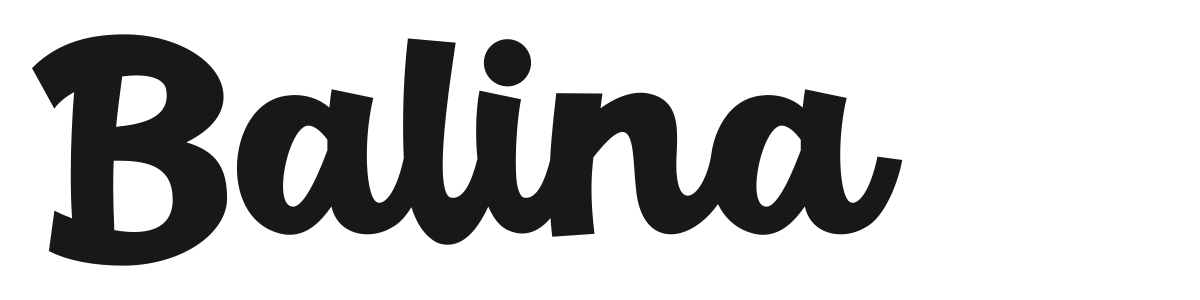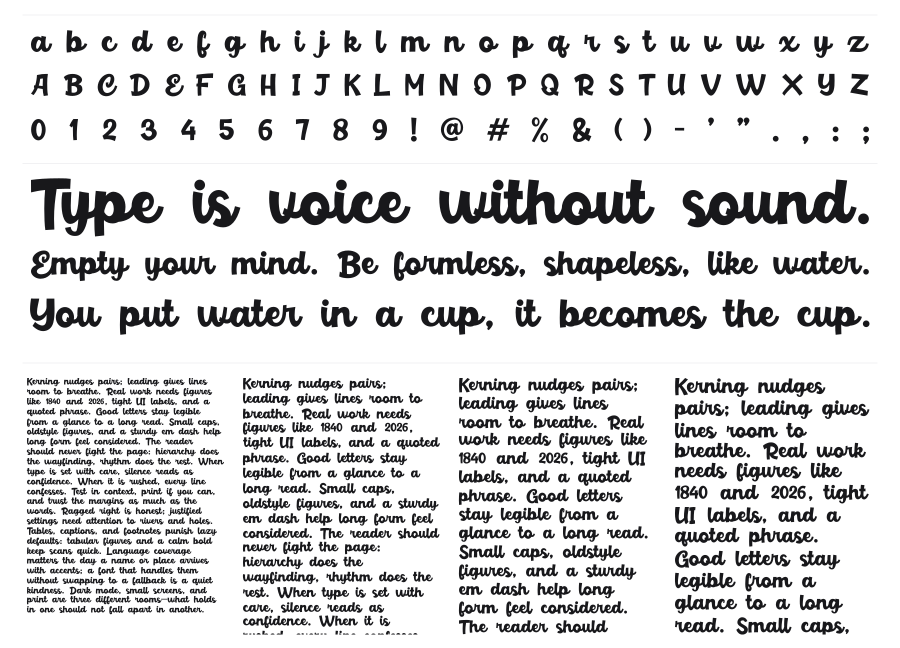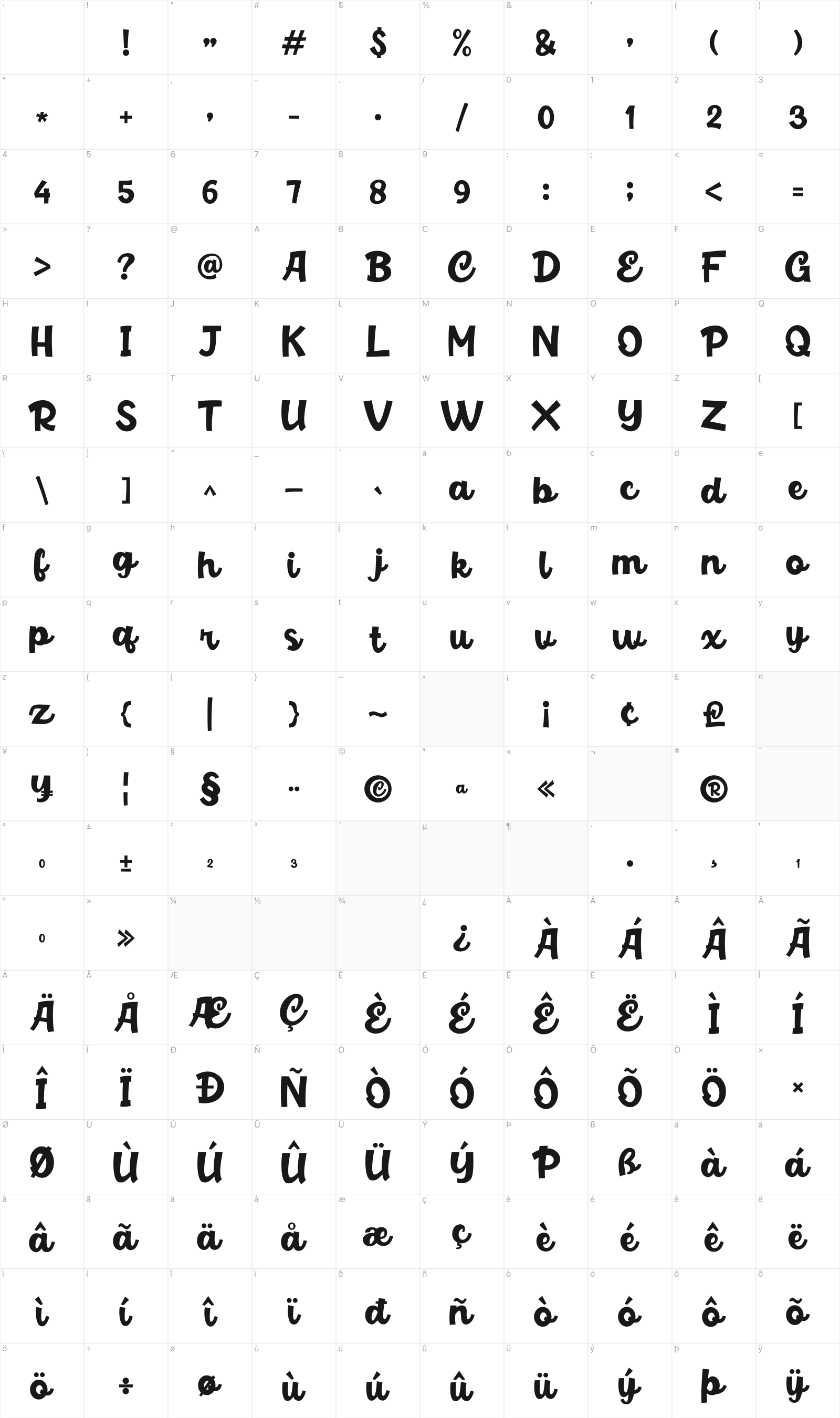
Balina
Balina is a bold casual connected script with smooth curves and a friendly, confident flow. The near-monoweight strokes and rounded terminals give it a handcrafted warmth that works well in logotypes, packaging, and social media graphics. It carries a retro-casual energy that fits naturally in food, fashion, and lifestyle branding.